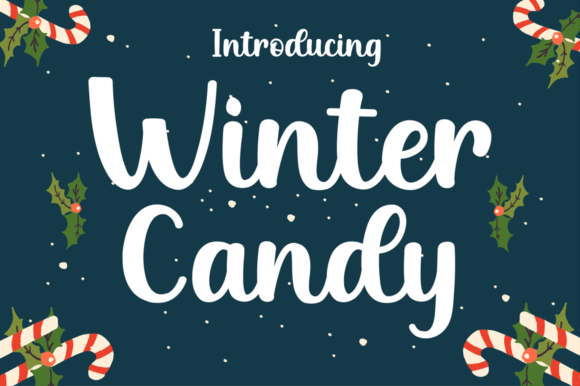
Behold Winter Candy Font, the script font that ignites a symphony of elegance and charm. This meticulously crafted creation by Manjalistudio is an enchanting blend of simplicity and sophistication, captivating hearts with its genuine and heartfelt appeal. Immerse yourself in the beauty of Winter Candy, a font designed to elevate your creative endeavors to breathtaking heights.
With its graceful curves and delicate details, Winter Candy effortlessly transports you to a realm of timeless romance. Its unassuming nature lends itself perfectly to a myriad of projects, effortlessly adding a touch of magic to wedding invitations, stationary art, social media posts, and greeting cards.
Imagine the awe and admiration your wedding guests will experience as they receive invitations adorned with Winter Candy's graceful script. Its elegant strokes will set the tone for a day filled with love and joy, forever etching your special moment in the hearts of your loved ones.
Unleash your inner artist and let Winter Candy guide you through the creation of captivating stationary art. Its versatility allows you to explore a world of possibilities, from whimsical illustrations to heartfelt calligraphy. Each stroke of the pen, each letter formed, will be a testament to your creativity and passion.
In the vibrant realm of social media, Winter Candy emerges as a beacon of distinction. Its enchanting presence will elevate your posts, captivating the attention of your audience. Whether it's a heartfelt message, a stunning visual, or an irresistible call to action, Winter Candy amplifies your voice and ensures your words resonate with impact.
And when the time comes to express your sentiments through the art of greeting cards, Winter Candy becomes your trusted companion. Its charming personality adds a personal touch, transforming ordinary cards into heartfelt expressions of love, friendship, and gratitude. With Winter Candy, your messages will carry the weight of sincerity, leaving a lasting impression on the hearts of those you cherish.
Winter Candy Font is more than just a collection of letters; it's an invitation to embark on a creative journey, to explore the depths of your imagination, and to leave an indelible mark on the world through the power of words. Its timeless beauty and heartfelt charm will forever hold a special place in the hearts of those who embrace its allure.